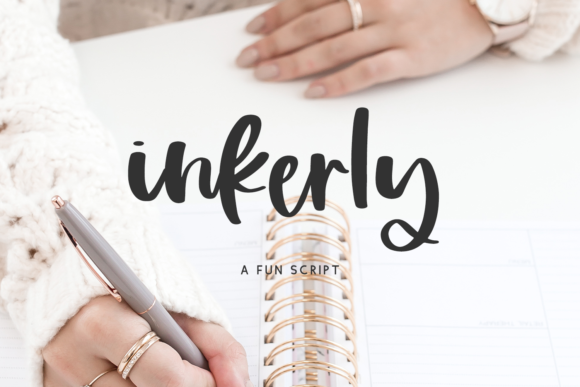
Inkerly Script: Where Elegance and Charm Interlace
In a world saturated with digital monotony, Inkerly Script emerges as a breath of fresh air, a font that captures the essence of handwritten artistry. This captivating script font, meticulously crafted by BeckMcCormick, strikes a perfect balance between charm and elegance, adding a touch of sophistication to any creative project.
Enter the realm of Inkerly Script, where words dance with grace and every letter carries a story. Its flowing lines and delicate curves evoke a sense of timeless beauty, reminiscent of handwritten love letters and heartfelt notes. Whether you're designing wedding invitations, thank-you cards, or greeting cards, Inkerly Script will elevate your creations with a personal touch that resonates with your audience.
Indulge in the versatility of Inkerly Script, a font that seamlessly adapts to a myriad of design needs. Its graceful strokes lend themselves effortlessly to logos and business cards, adding a touch of professionalism and creativity. Unleash your imagination and explore the endless possibilities, from heartfelt quotes to social media graphics, where Inkerly Script will transform your words into captivating visual expressions.
Welcome to the world of Inkerly Script, where your creative vision takes center stage. This remarkable script font is your passport to a world of elegance, charm, and boundless possibilities. Embrace the artistry of Inkerly Script and embark on a creative journey that will leave your audience spellbound.